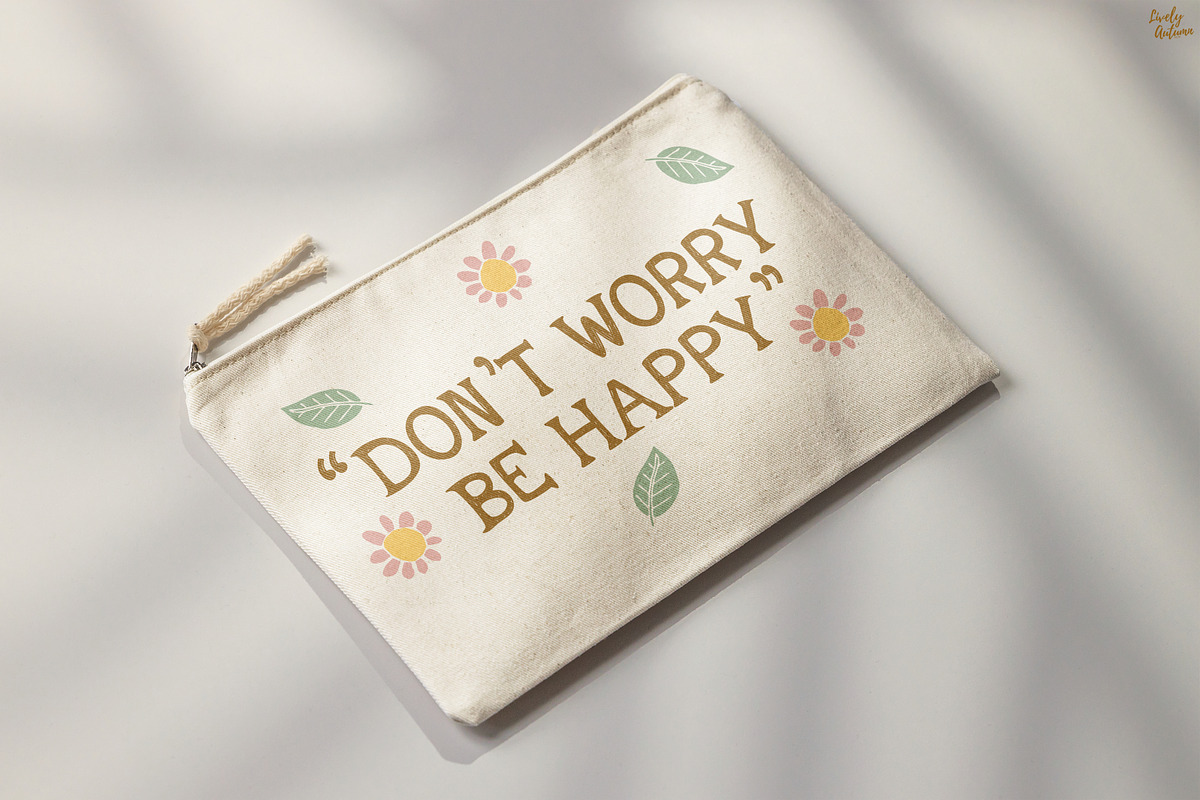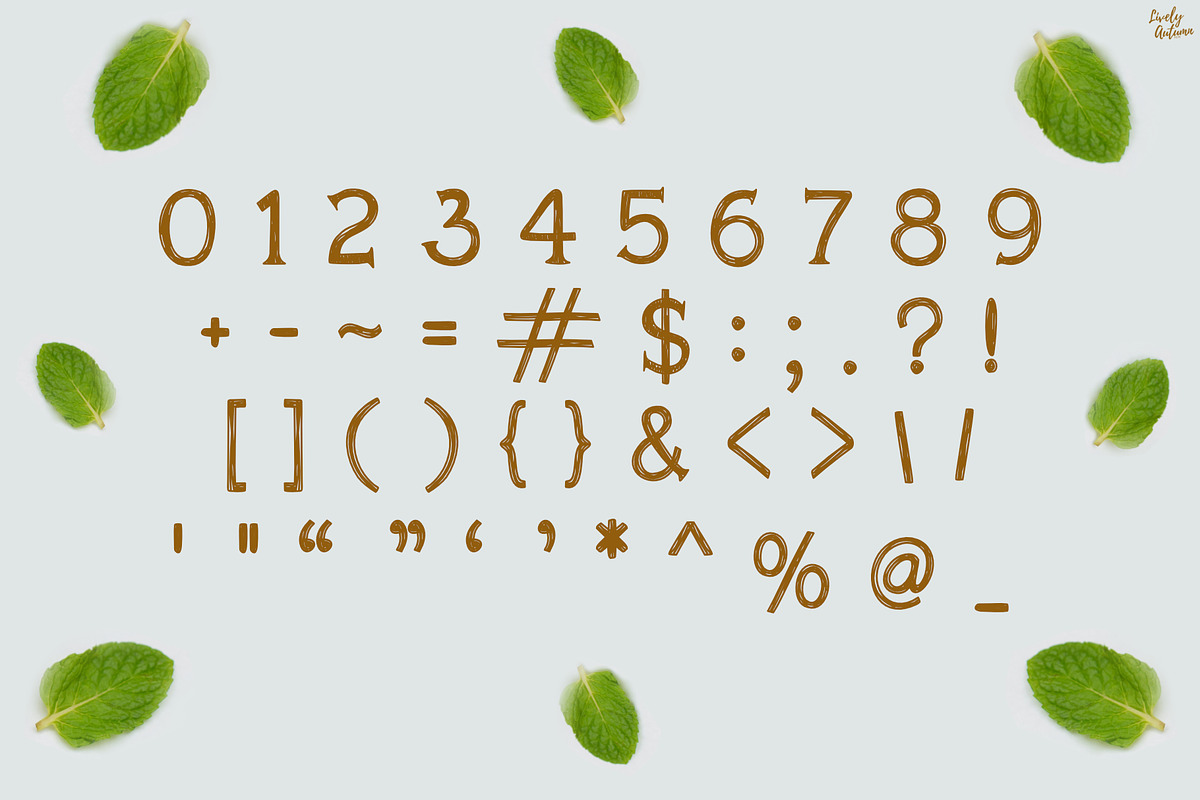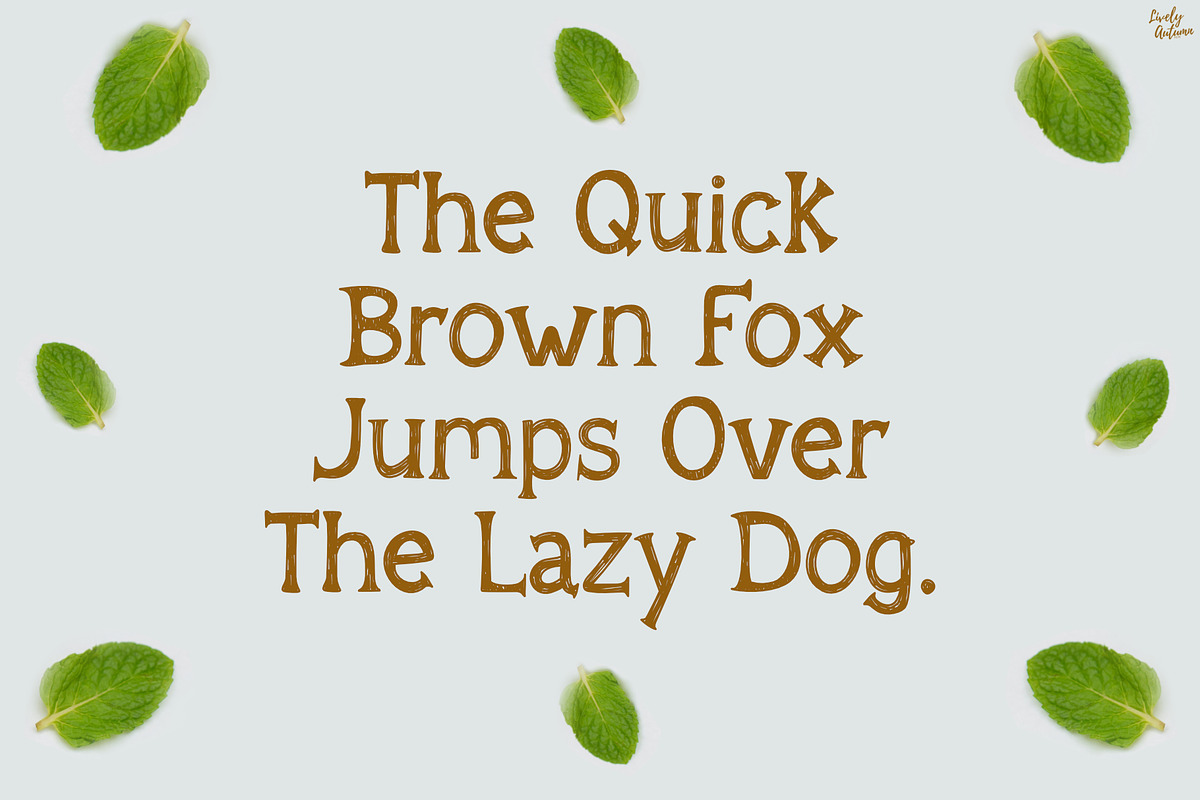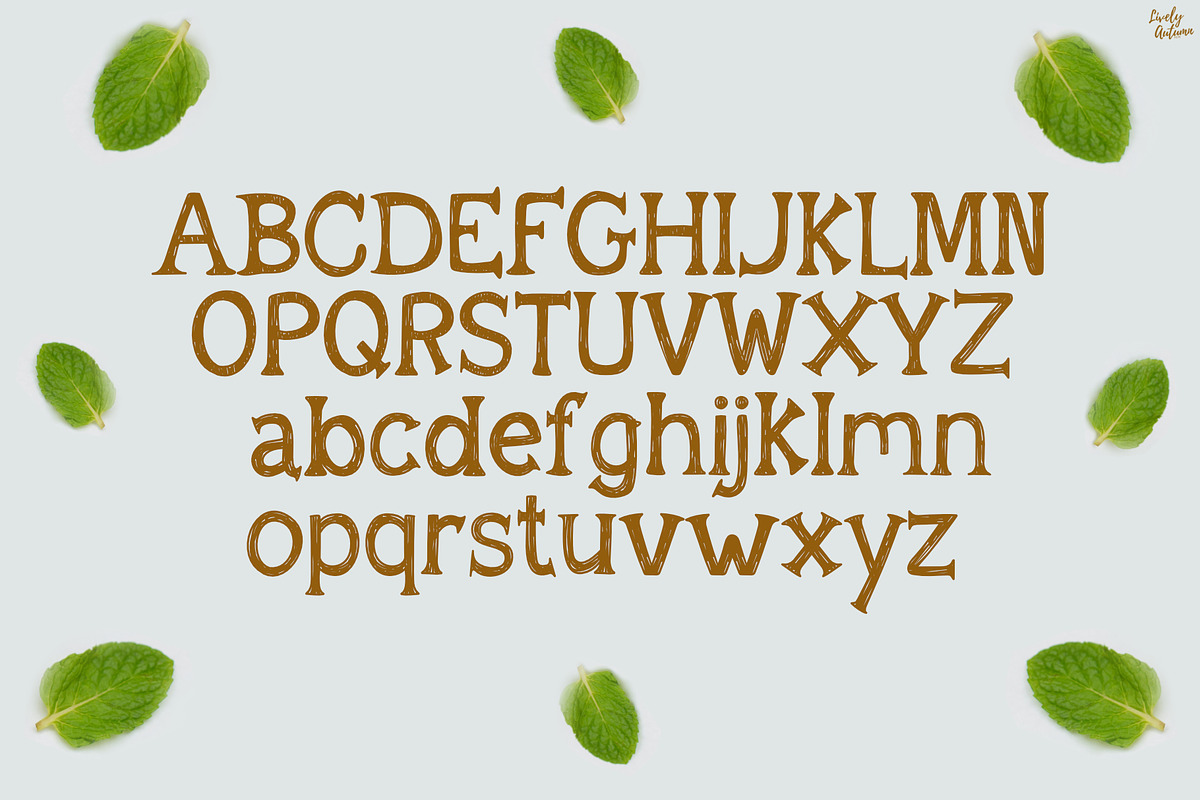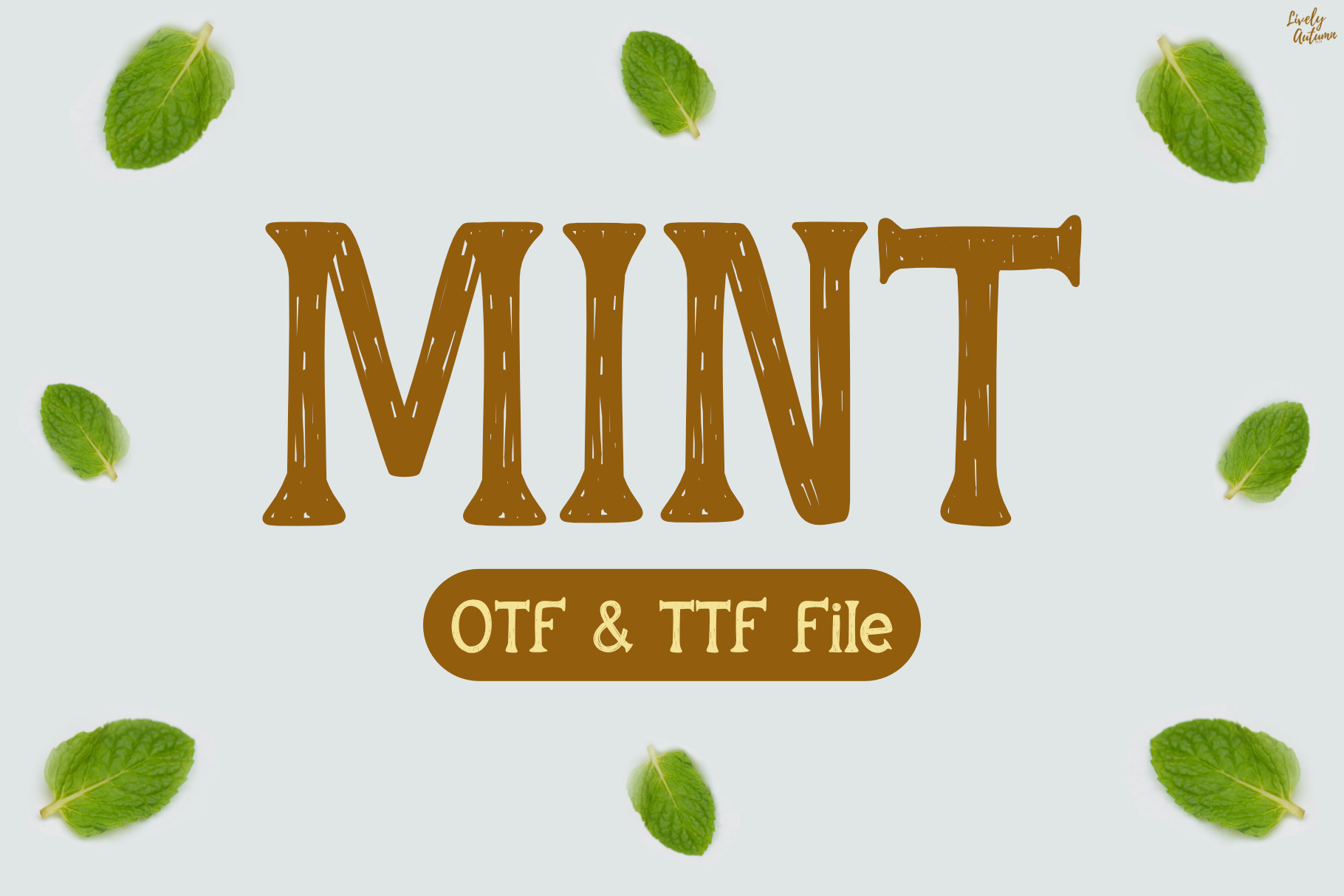
Mint | Handwritten Font
Mint Font is a handwriting doodle font. Perfect for your personal projects and various projects. From invitations to posters, social media graphics, journals, and much more.
- Font includes: uppercase, lowercase, numbers, and punctuation